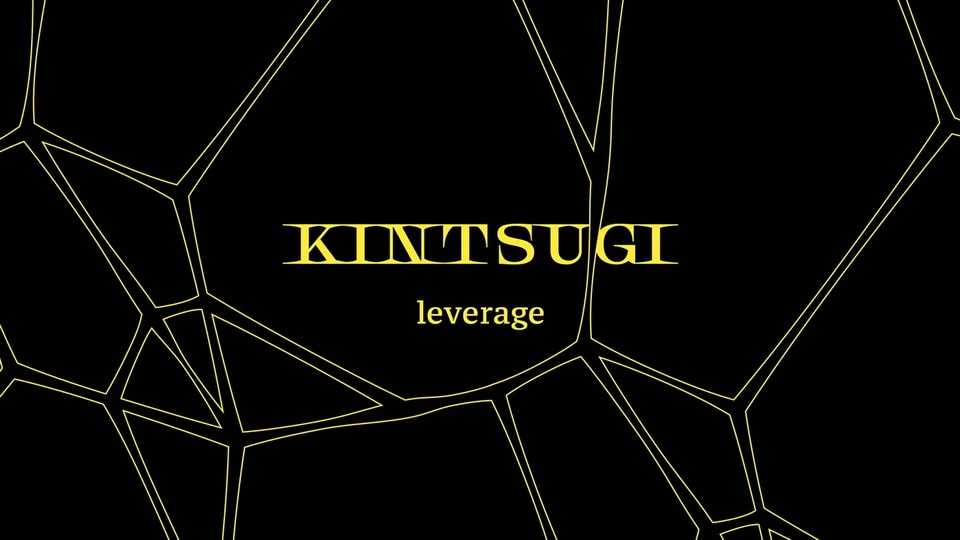
Download Kintsugi_LVRG font, a distinctive display typeface by the Leverage team, inspired by the image of a restored plate using the Japanese art of kintsugi (金継ぎ — “golden joinery”).